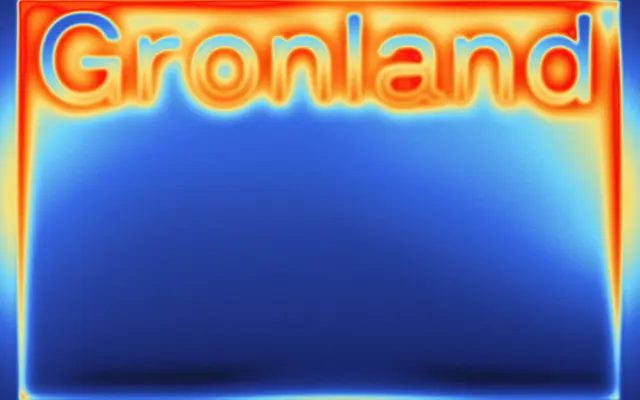
Gronland
Güneş Muhittin · Muhittin Güneş · 2021
A grid-derived geometric sans in 18 cuts, designed by Muhittin Güneş for industrial clarity and long-term neutral utility.
Built on a strict digital grid, Gronland strips form back to its structural minimum, offering nine weights from Thin to Black each with a matching italic. Released in 2021 and updated to version 003 in March 2025, it ships as a high-precision variable font covering 761 glyphs. The design positions itself as a plain, unyielding workhorse for contexts where the content, not the typeface, is meant to carry attention.
Gronland is described as rooted in digital grid functionalism with a plain proportional skeleton, placing it firmly in the geometric sans tradition where structure takes precedence over humanist warmth or grotesque character.